Uniwidth
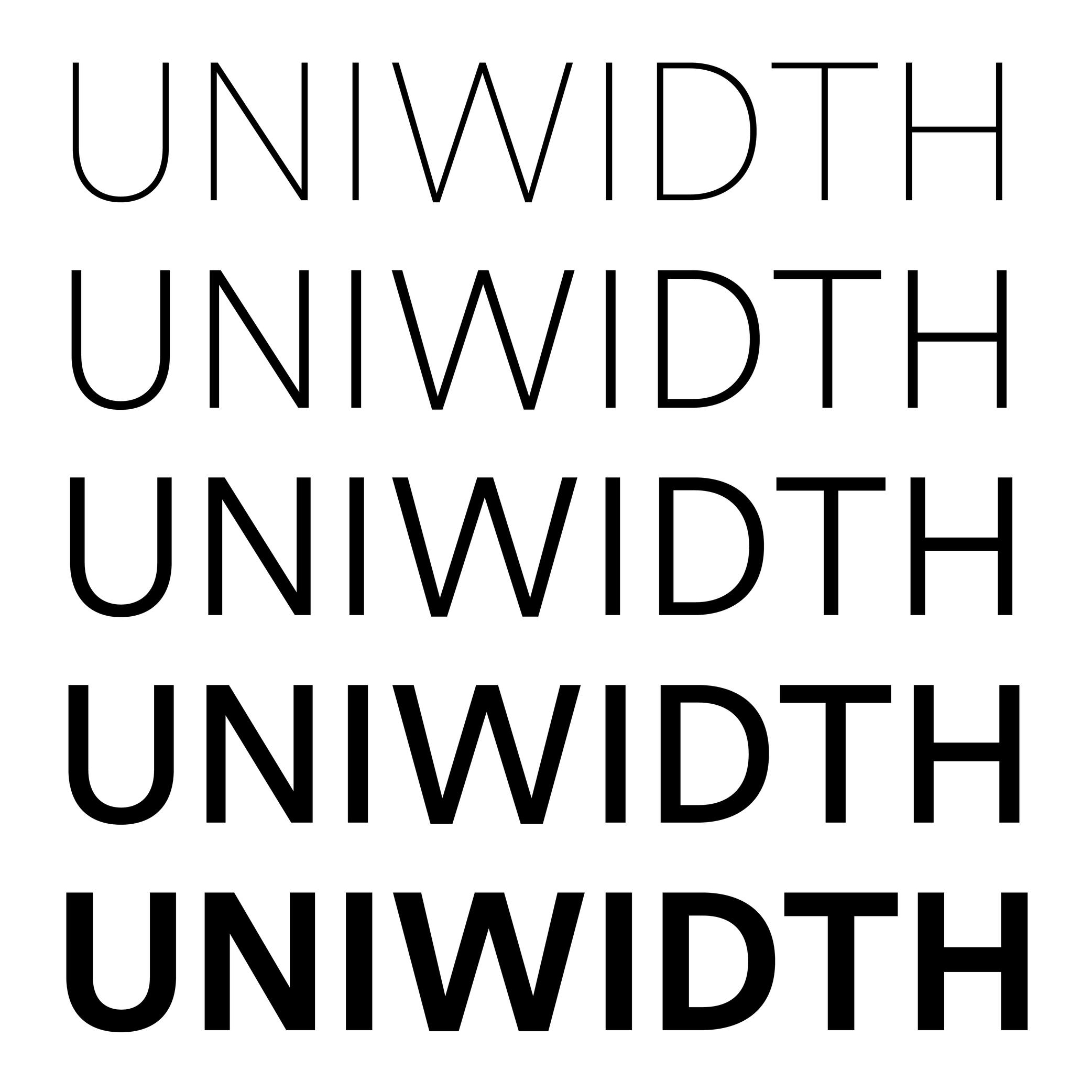
Multiplexed or Duplexed.
The term (in English) was brought up by Armenian and American type designer and teacher Hrant Papazian. Many people are still debating about which naming to choose...
In type design, the width and/or spacing of a glyph often changes depending on the weight or style to maintain visual balance. Uniwidth typefaces, however, keep the same horizontal metrics across all weights and styles of a family. It is not the same as monospace fonts, for which all glyphs share the same width—duplexed typefaces are still proportional.
This consistency facilitates digital typesetting, particularly when text changes in style dynamically (e.g., on hover or in interactive interfaces) without altering the layout.